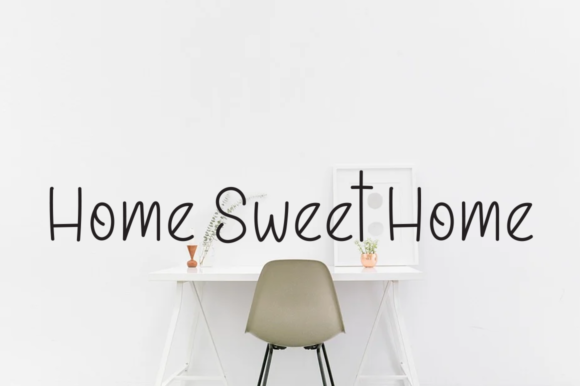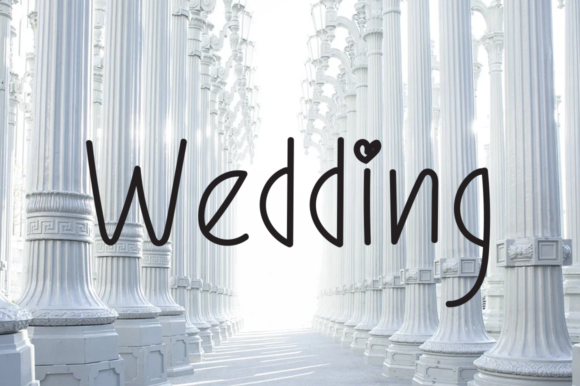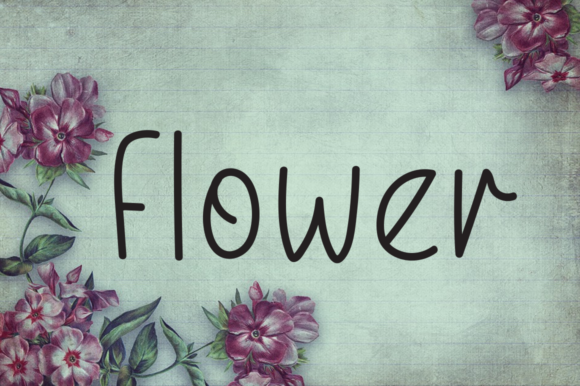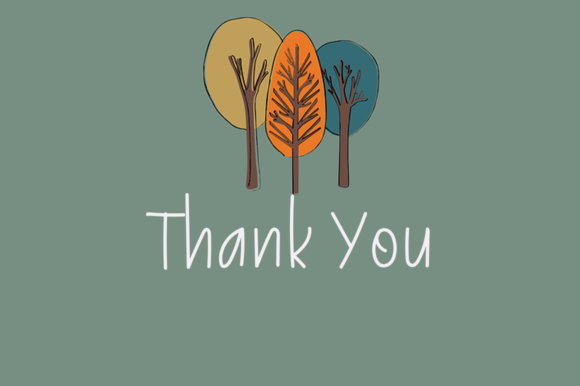
Simple Minimalist Font
About Simple Minimalist Font
Simple Minimalist is a beautiful and versatile handwritten font that adds a touch of elegance and sophistication to any design. With its dainty and thin letterforms, this font is perfect for creating minimalist and clean designs.
The simplicity of Simple Minimalist makes it highly adaptable and suitable for a wide range of projects. Whether you’re designing logos, branding materials, invitations, stationery, or social media graphics, this font will enhance the overall aesthetic of your creations.
The delicate strokes and balanced letterforms of Simple Minimalist create a harmonious and refined look. Its clean and minimalist style brings a sense of modernity and sophistication, making it a popular choice for contemporary designs.
Despite its minimalistic nature, Simple Minimalist has a strong visual impact. Each letter has been carefully crafted to maintain legibility and readability, ensuring that your message is effectively conveyed to your audience.
The adaptability of Simple Minimalist allows it to work well in various design contexts. Whether you’re creating a bold headline, elegant body text, or subtle accents, this font can be easily combined and customized to suit your specific design needs.
Simple Minimalist is a versatile font that can be used in both digital and print media. It supports a wide range of languages and includes a comprehensive set of characters, including uppercase and lowercase letters, numerals, punctuation marks, and special glyphs.
Overall, Simple Minimalist is a dainty, thin, and adaptable handwritten font that adds a touch of elegance and sophistication to any design. Its minimalistic style and versatility make it a valuable asset for your font library, capable of elevating any creation with its refined and timeless aesthetic.